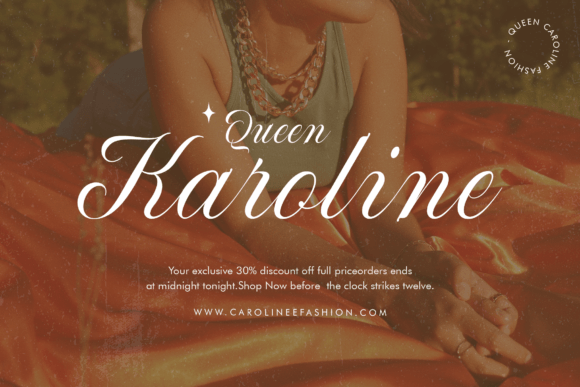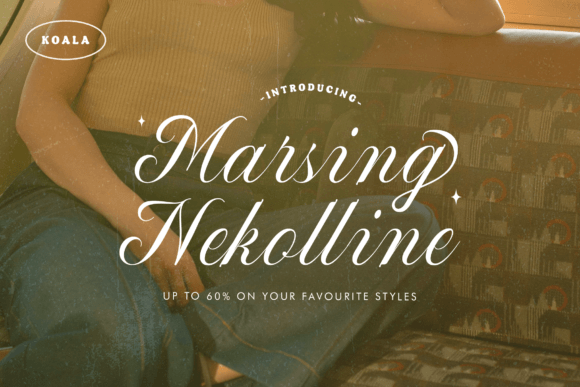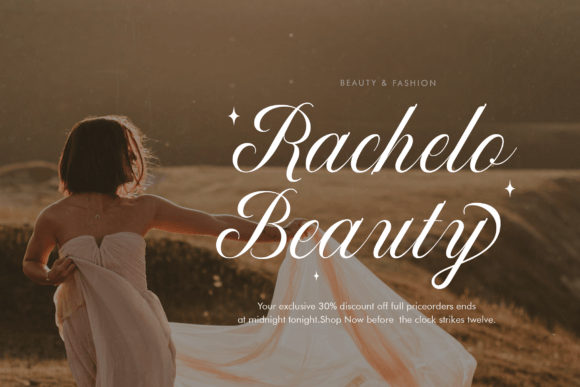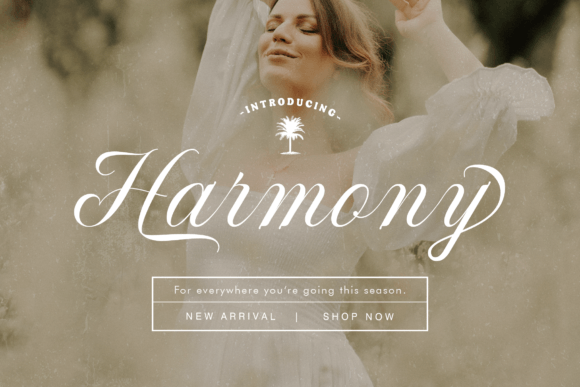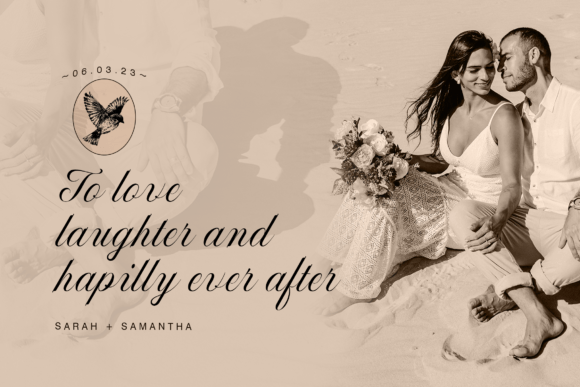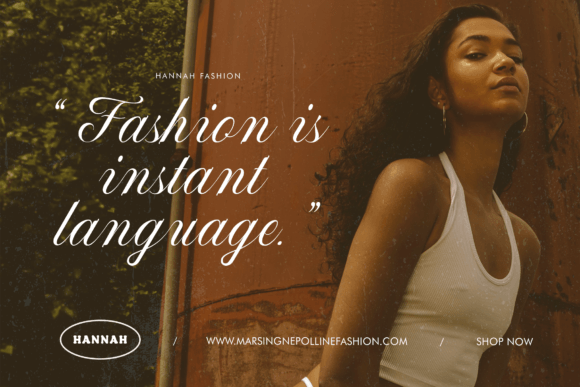
Introduction to Mrs Hannah Font
Mrs.
Hannah is a luxurious calligraphy script font that embodies classic romance and timeless beauty With its elegant and fancy design, this font adds a touch of sophistication to any project.
Key Features of Mrs Hannah Font
Why Choose Mrs Hannah Font?
Mrs Hannah Font offers exceptional quality and versatility, making it a valuable addition to your design toolkit. Whether you’re creating for personal projects or commercial use, Mrs Hannah Font delivers professional results.